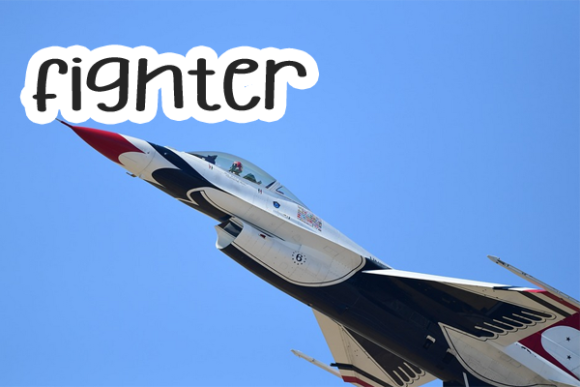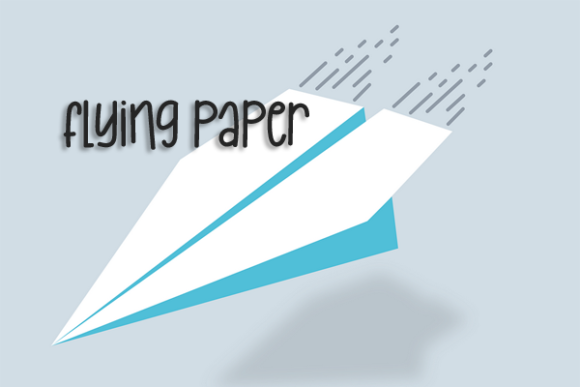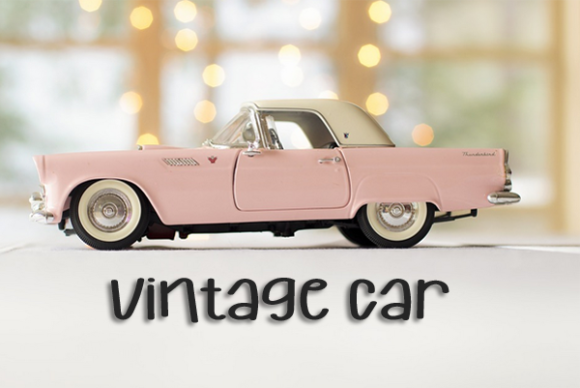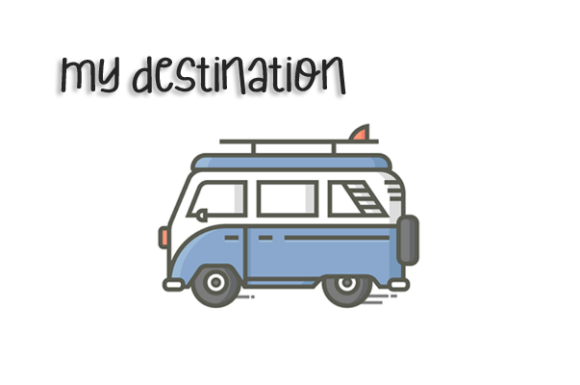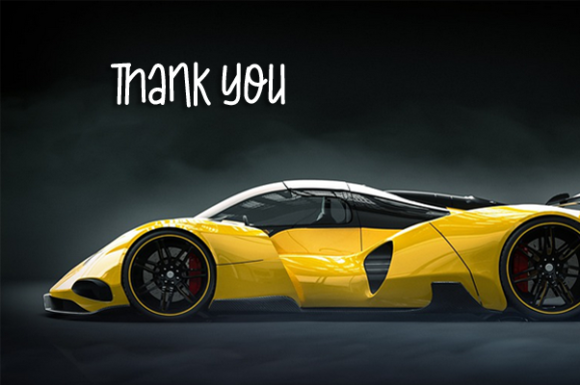
FighTing Font: The Sweet and Friendly Handwritten Font for Your Creative Projects
Are you tired of using the same old fonts for your designs? Look no further! FighTing Font is here to revolutionize your creative projects with its sweet and friendly handwritten style. This unique font is perfect for designers, crafters, and anyone looking to add a personal touch to their work.
The Unique Style of FighTing Font
FighTing Font boasts a natural and unique style that makes it incredibly versatile. Its handwritten charm is perfect for a wide range of designs, from rustic and vintage to modern and playful. The font’s distinctive character ensures that your projects will stand out from the crowd and leave a lasting impression.
Endless Possibilities with FighTing Font
The only limit to using FighTing Font is your imagination! This incredible font can be used for various design projects, such as:
- Branding and packaging: Add a personal touch to your logo, labels, and packaging with FighTing Font’s unique style.
- Stationery and invitations: Create beautiful and eye-catching stationery, invitations, and greeting cards with this lovely font.
- Digital marketing: Use FighTing Font to create engaging social media graphics, blog posts, and email newsletters that will capture your audience’s attention.
- Crafting and DIY projects: Add a touch of personality to your crafting and DIY projects, such as handmade cards, scrapbooking, and journaling.
Why Choose FighTing Font?
FighTing Font offers several benefits that make it an excellent choice for designers and crafters:
- Unique style: FighTing Font’s distinctive handwritten style ensures that your projects will stand out from the crowd.
- Versatility: This font is suitable for a wide range of designs and projects, from rustic to modern and playful.
- Easy to read: FighTing Font is clear and easy to read, making it perfect for body text and headlines.
- Customizable: You can adjust the font size, color, and style to fit your design needs.
Tips for Using FighTing Font
To get the most out of FighTing Font, here are some tips to keep in mind:
- Pair with other fonts: Combine FighTing Font with other fonts to create a unique and visually appealing design.
- Experiment with colors: Try out different colors and textures to add depth and interest to your design.
- Use for headlines and body text: FighTing Font is suitable for both headlines and body text, making it a versatile choice for your designs.
FighTing Font is a sweet and friendly handwritten font that is perfect for designers, crafters, and anyone looking to add a personal touch to their creative projects. Its unique style, versatility, and ease of use make it an excellent choice for a wide range of designs. So why wait? Get creative with FighTing Font and take your designs to the next level!
Whether you’re a seasoned designer or a crafty DIY enthusiast, FighTing Font is sure to inspire your creativity and help you produce stunning designs that will leave a lasting impression. So go ahead, give FighTing Font a try, and see the amazing things you can create!